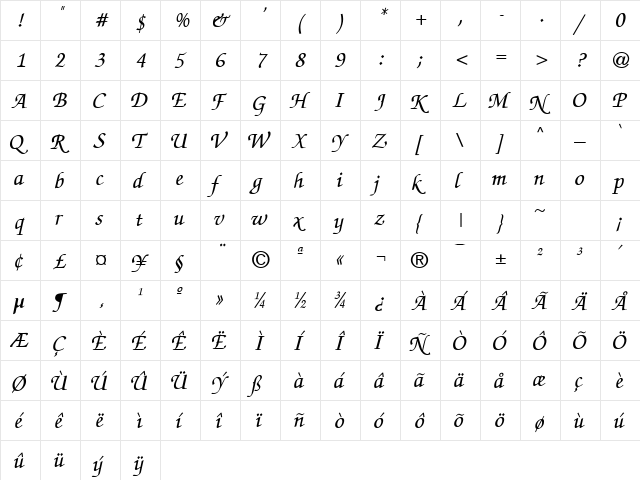
Zap-Chance Normal
Design Context for Zap-Chance Typeface
Zap-Chance is a composed and adaptable typeface that performs quietly and consistently across a wide range of design contexts.